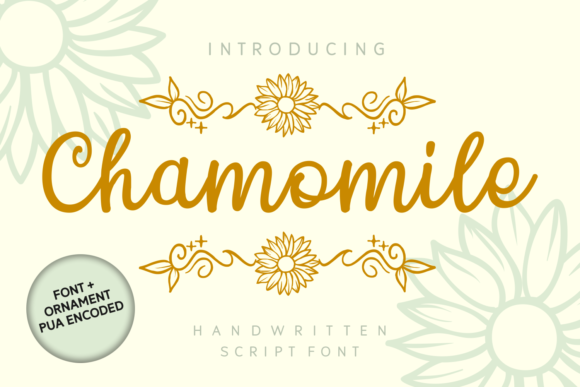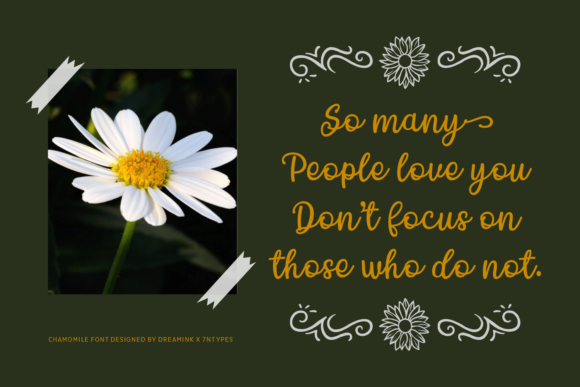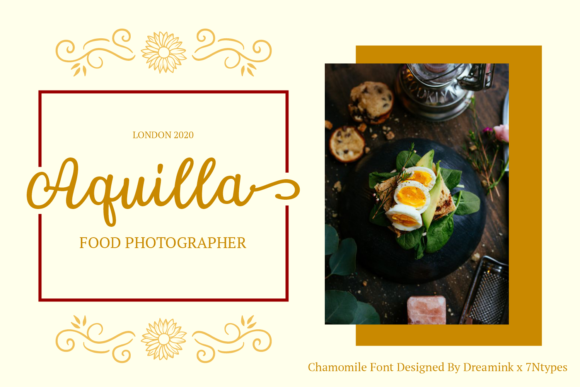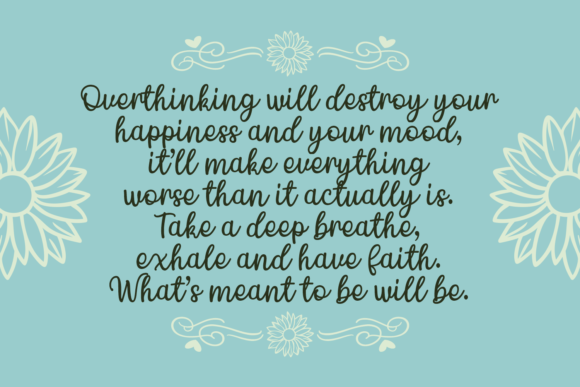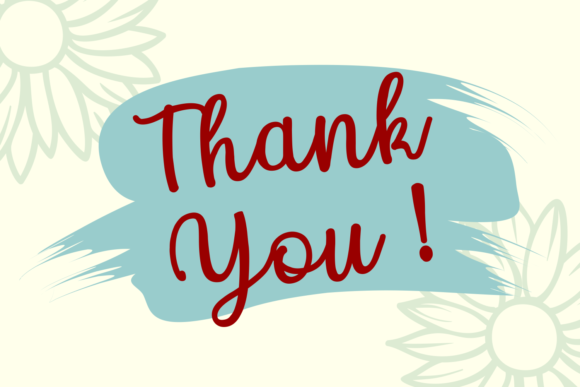
Chamomile Font
About Chamomile Font
Chamomile is a sweet, soft hand-lettered handwritten font. This font is PUA encoded which means you can access all of the beautiful glyphs and swashes with ease!